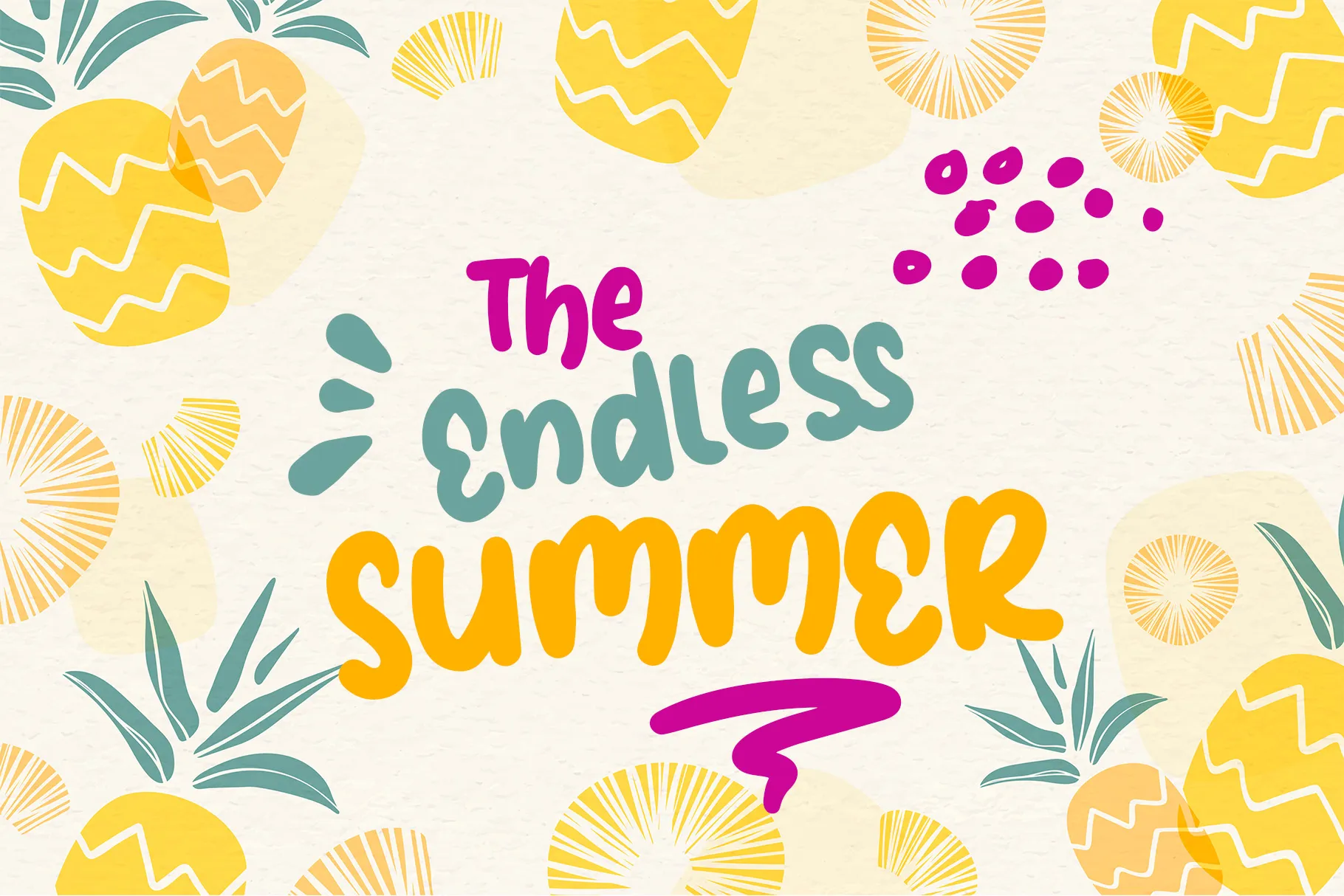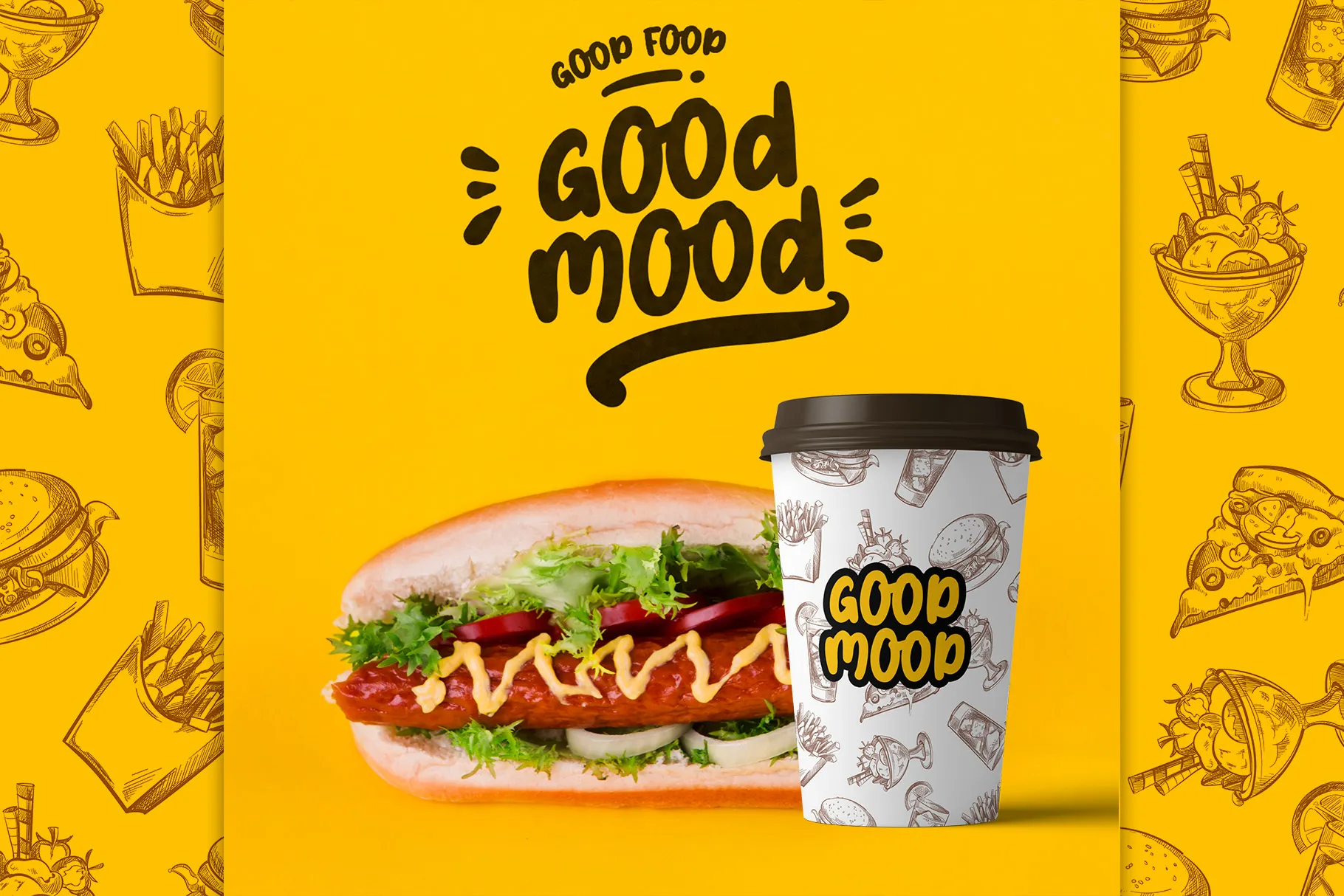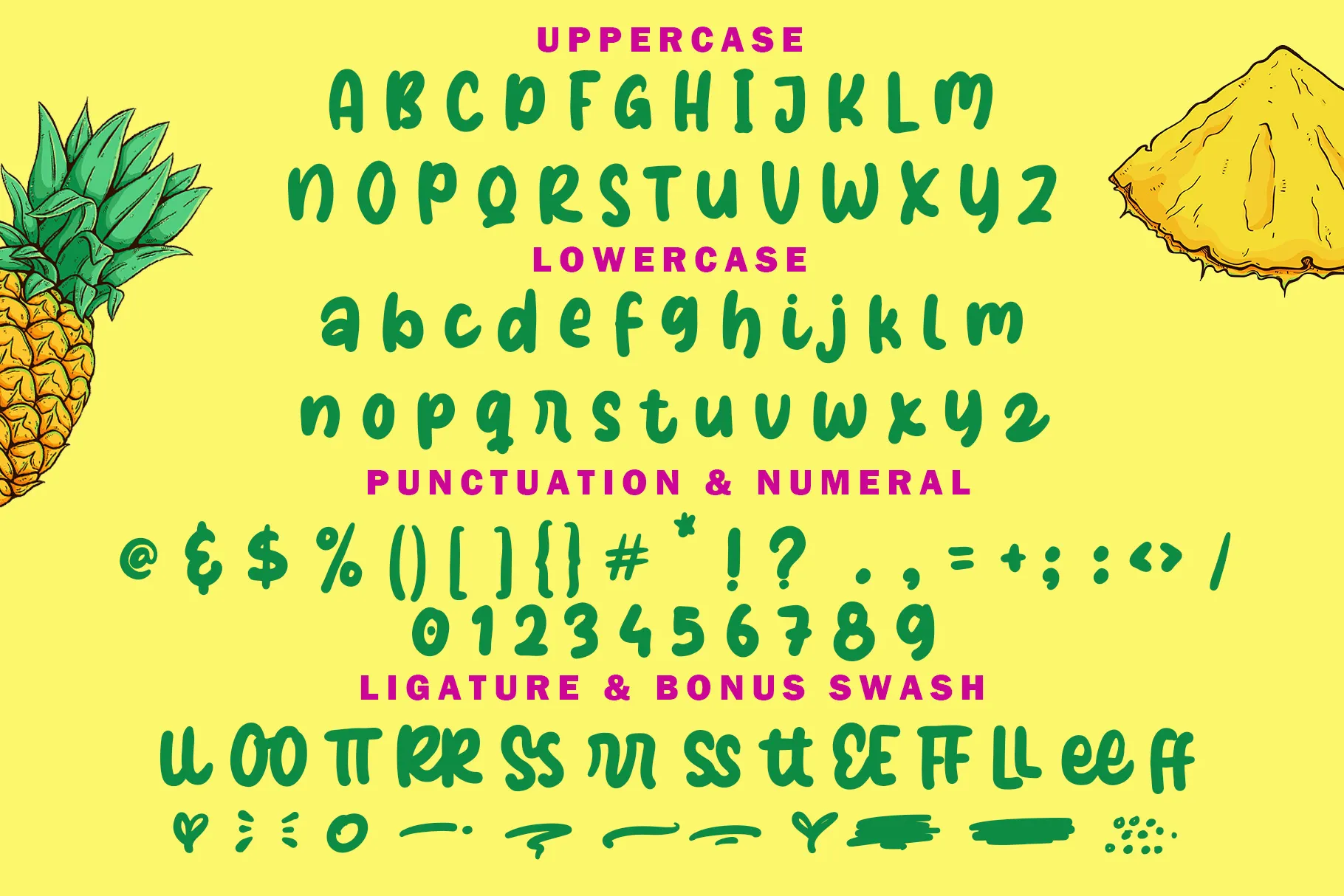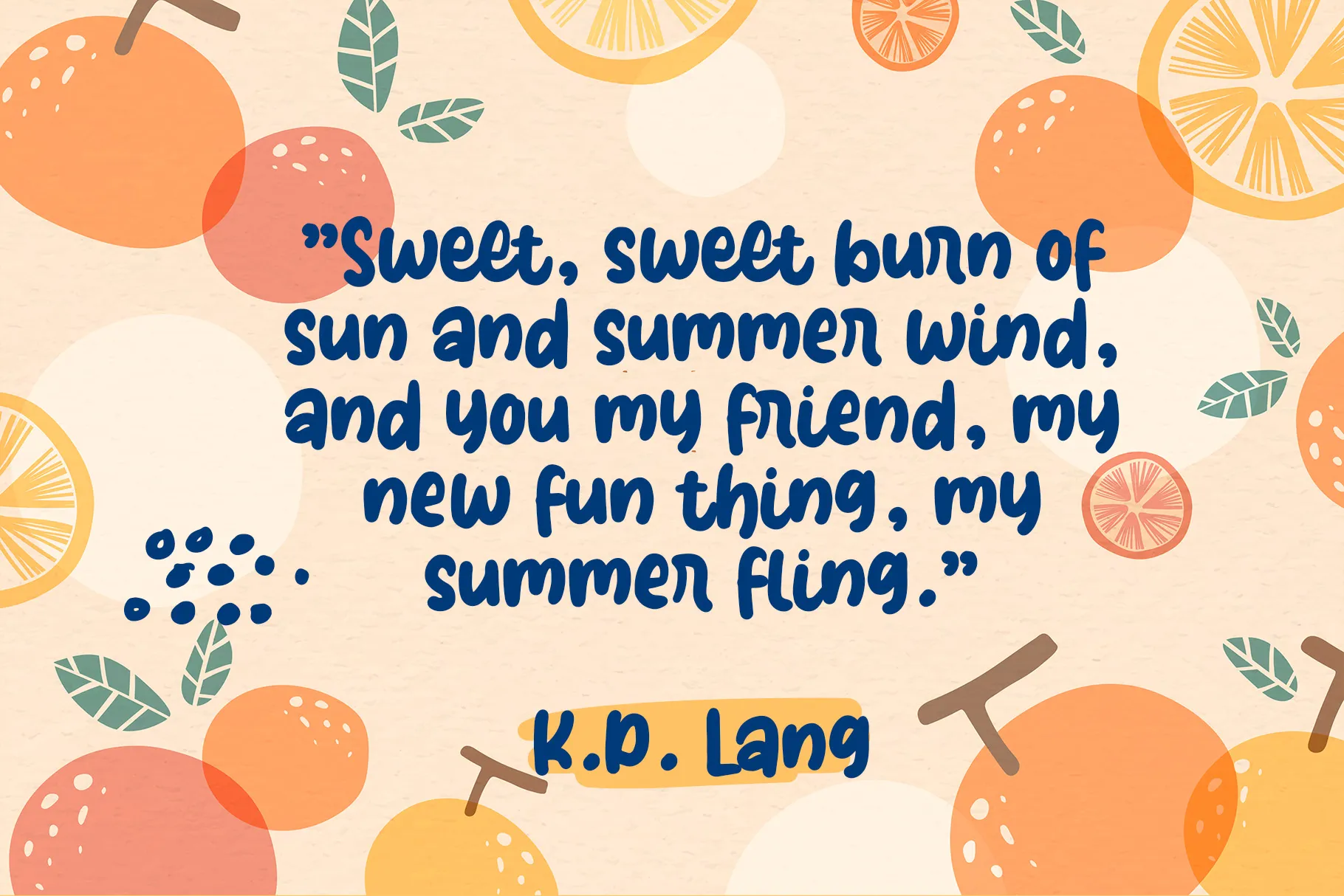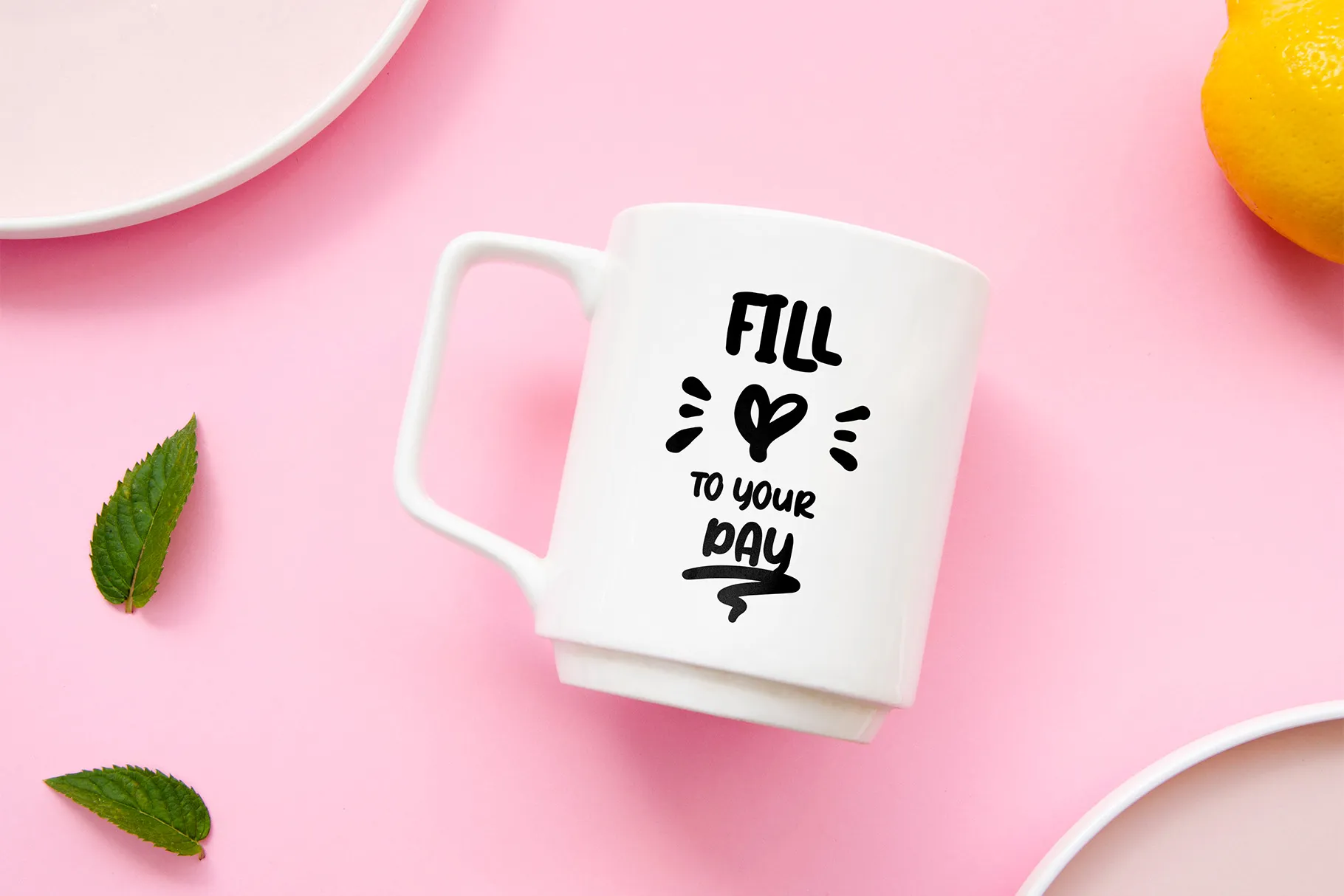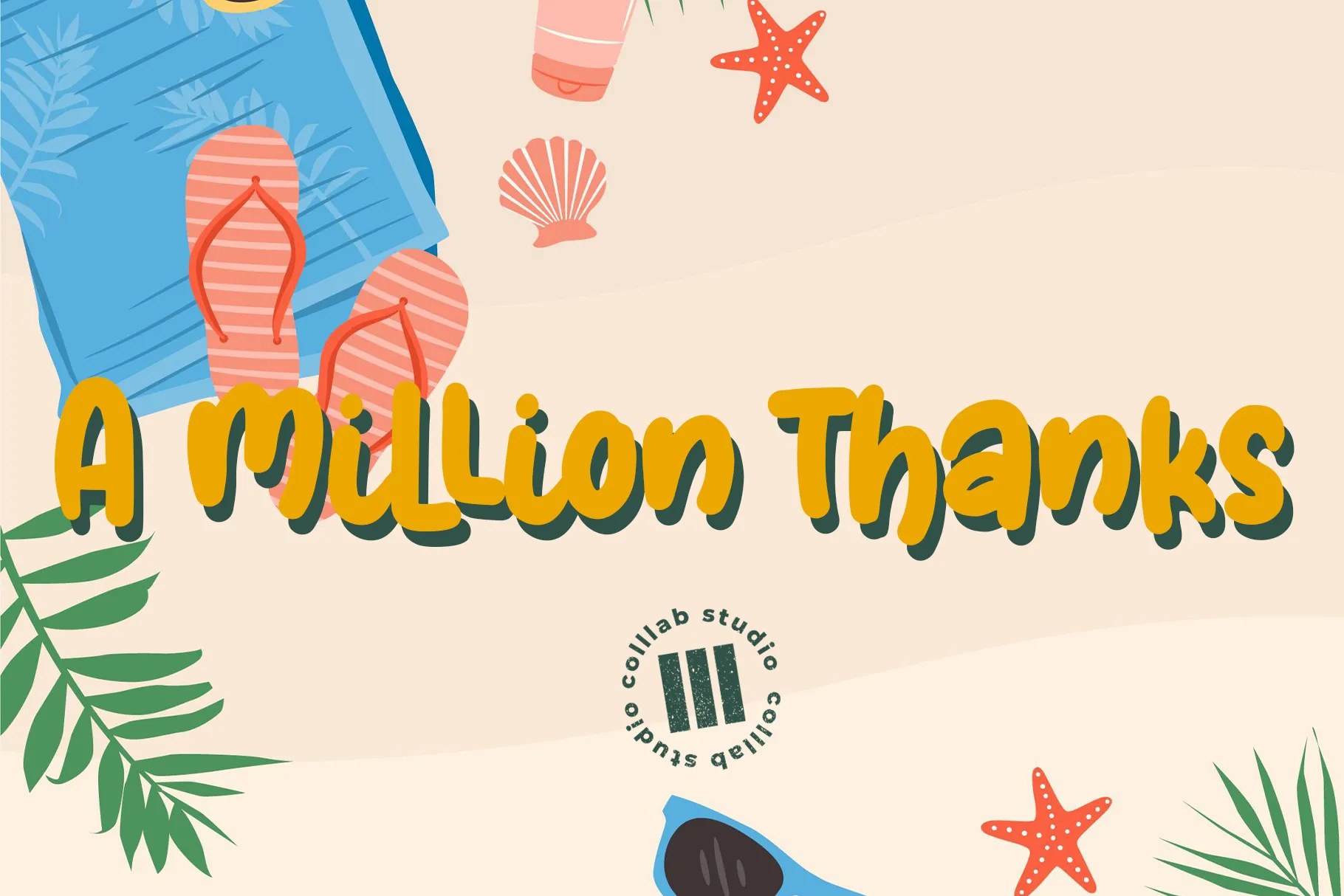
Valerrie Morrie is a modern, cute handwritten font with a playful yet elegant touch. Featuring decorative characters and a charming irregular baseline, this typeface brings a trendy feminine vibe to your projects. Its lively strokes and casual handwritten feel make it perfect for designs that need warmth, creativity, and personality.
This versatile handwritten script is ideal for wedding invitations, thank you cards, logos, business cards, quotes, and greeting cards. Whether used for personal branding or decorative projects, Valerrie Morrie adds a fresh, stylish, and approachable look.
Full uppercase + lowercase characters
Numbers & punctuation included
Beautiful ligatures for natural flow
Multilingual support
Valerrie Morrie is a modern, cute handwritten font with a playful yet elegant touch. Featuring decorative characters and a charming irregular baseline, this typeface brings a trendy feminine vibe to your projects. Its lively strokes and casual handwritten feel make it perfect for designs that need warmth, creativity, and personality.
This versatile handwritten script is ideal for wedding invitations, thank you cards, logos, business cards, quotes, and greeting cards. Whether used for personal branding or decorative projects, Valerrie Morrie adds a fresh, stylish, and approachable look.